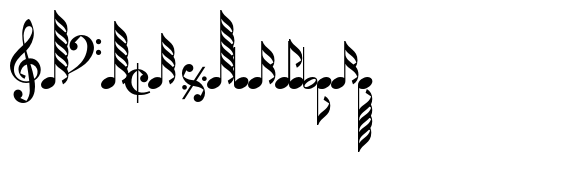
Varius™
von Linotype
Die Schriftfamilie Varius wurde von André Maaßen entworfen und von Linotype veröffentlicht. Varius enthält 8 Stile und Familienpaketoptionen.
The shapes of the f-holes on a violin reminded German designer André Maaßen of an italic letter "f". Maaßen used these captivating contours as the theme for his type family, Varius. The name "Varius" is an homage to the manufacturer of the violin that inspired Maaßen's project, Antonio Stradivarius, the most famous manufacturer of violins in music history. Varius has three separate styles. Varius 1 and its italic are the base style of the family, and are typefaces in the baroque serif manner. Varius 2 and its italic are slab serif egyptiennes, slightly heavier than Varius 1's more classical forms. Varius 3 and its italic are semi serif faces; their characters are serifed, but some of the serifs have been cut off. The family is rounded out with two pi faces: an ornaments font (which can be used in conjunction with the text fonts, or on its own to create beautiful borders or individual decorative elements), and a font of musical symbols and notations. Each of the six text fonts has dozens of supplemental ligatures included in their character sets. When these fonts are used in an OpenType-supporting application, such as Adobe InDesign, these ligatures automatically appear in text when the "Discretionary Ligatures" feature is activated. Additionally, the character sets include added alternate glyphs, such as a swash "m" or "n" to finish off a line of text. These can be inserted manually in applications that include glyph palettes (e.g., Adobe InDesign or Illustrator CS). All of the Varius family's letterforms appear slightly narrow, and traces of the wide-nibbed pen can be seen within their forms. Additionally, the shape of a violin's f-hole is a reminiscent element within all of the family's curves. Varius is particularly suited for use many applications, such as body text, newspaper text, display text, headlines, posters, books, screen design, and corporate identity. Use in sizes ranging from body copy text to display and poster format allow the different facets of the typeface to effectively present themselves. The effects can be as versatile as the possibilities! Due to its special character, the typeface could be used in the design of a logo, or within an appropriate corporate design context, to particularly stress individuality.
Designer: André Maaßen
Herausgeber: Linotype
Foundry: Linotype